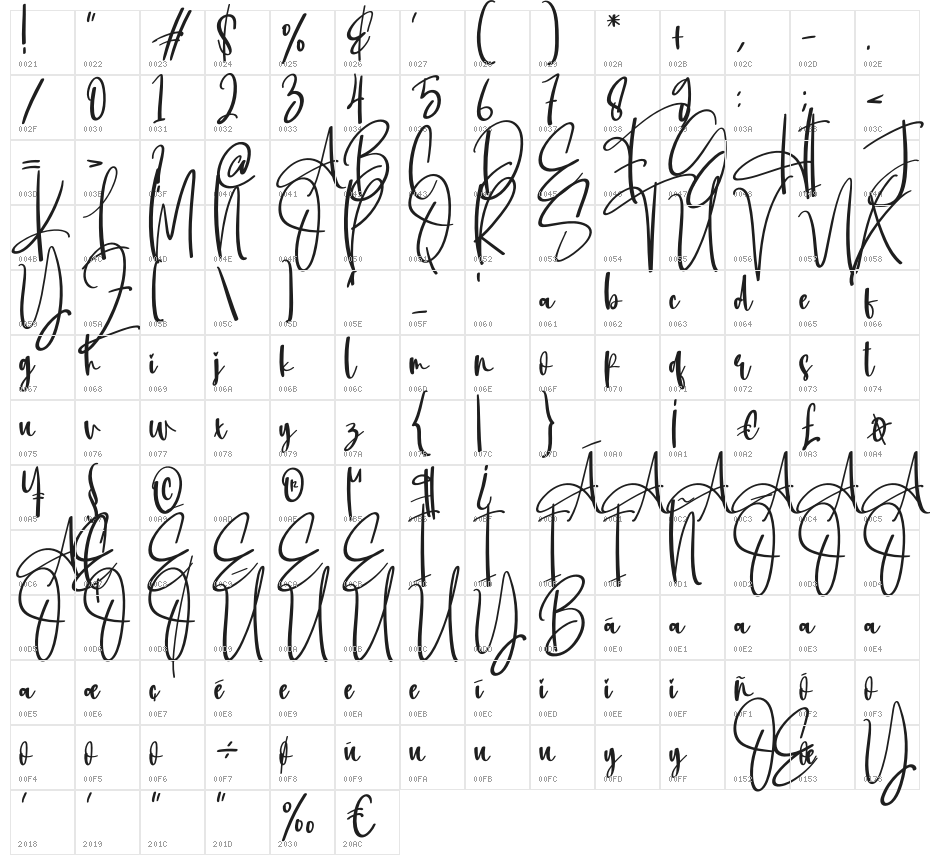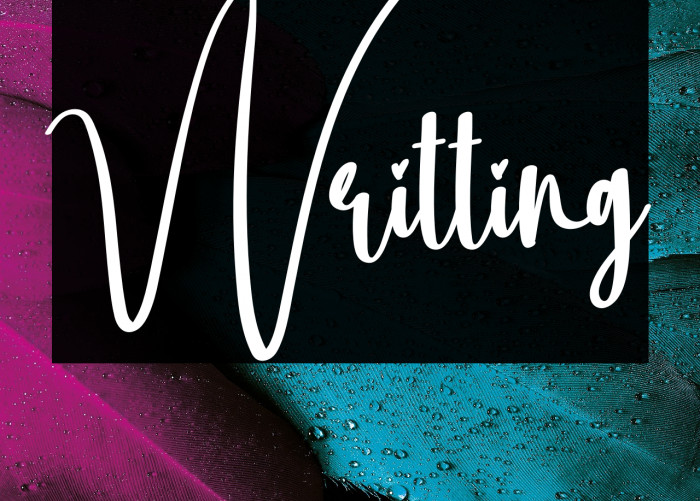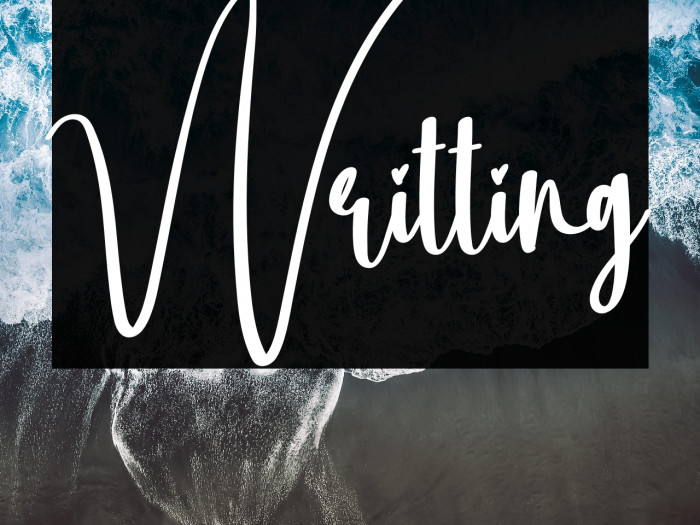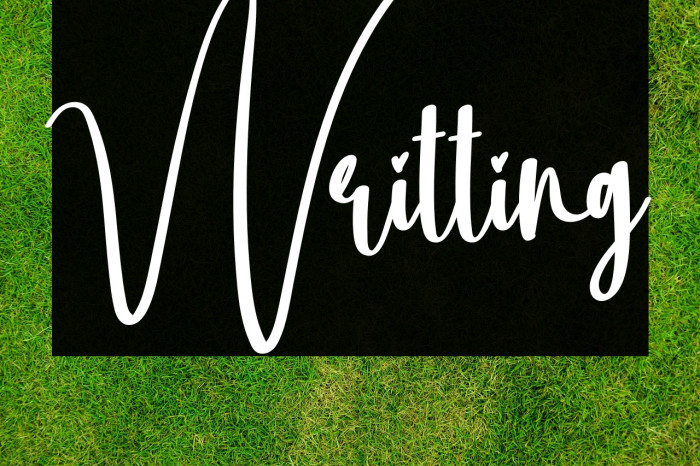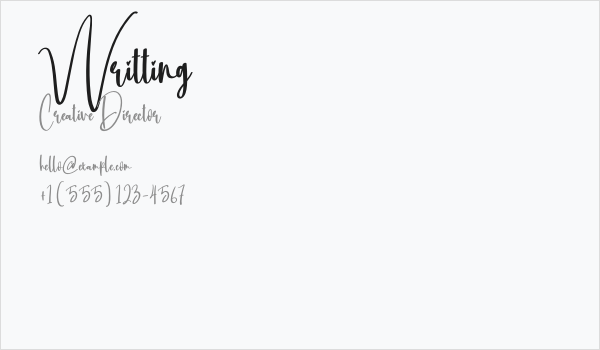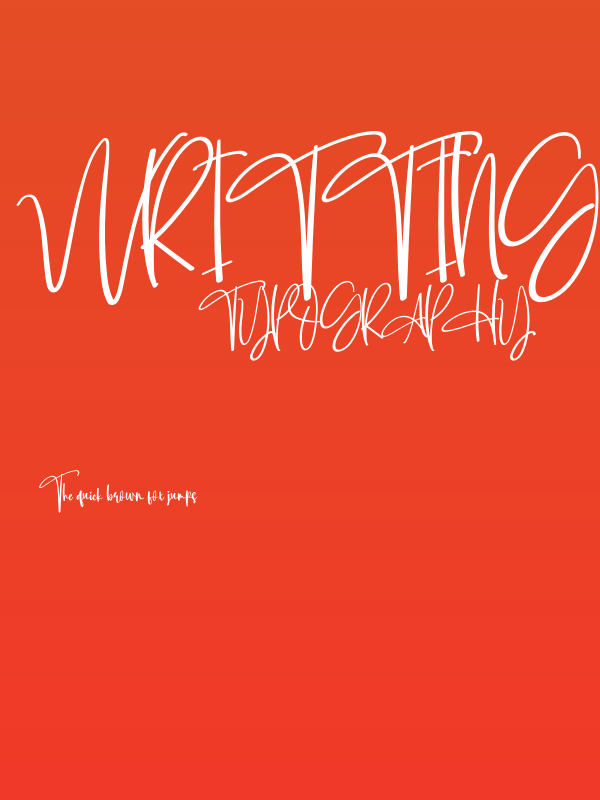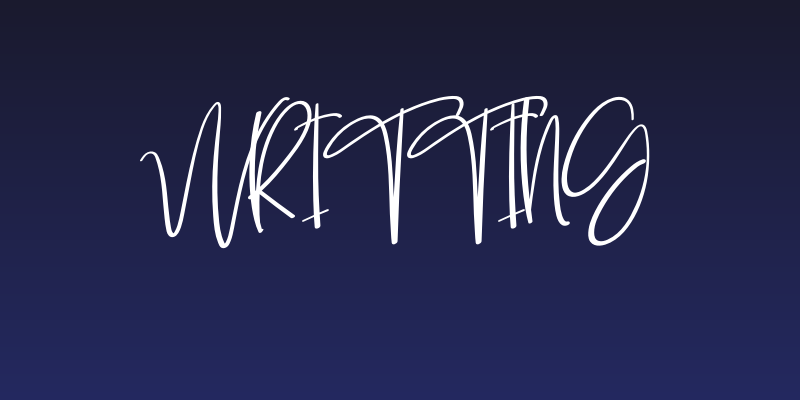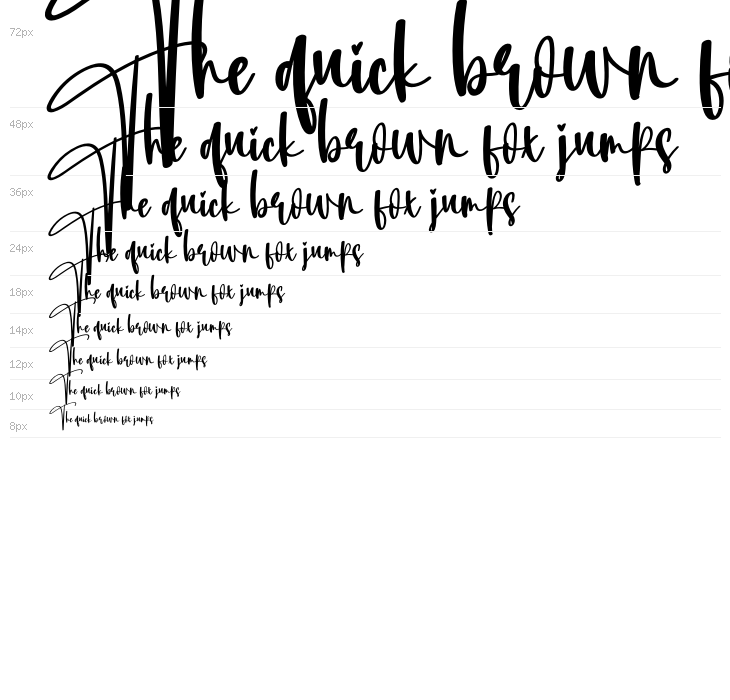
Writting Font
Writting Description
A playful, handwritten script font with a casual and artistic flair. It features flowing, connected letters with varying stroke widths, giving it a dynamic and lively appearance.
| Use Case | Logos, Headlines, Invitations |
| Proposed Projects | Greeting cards, invitations, personal branding. |